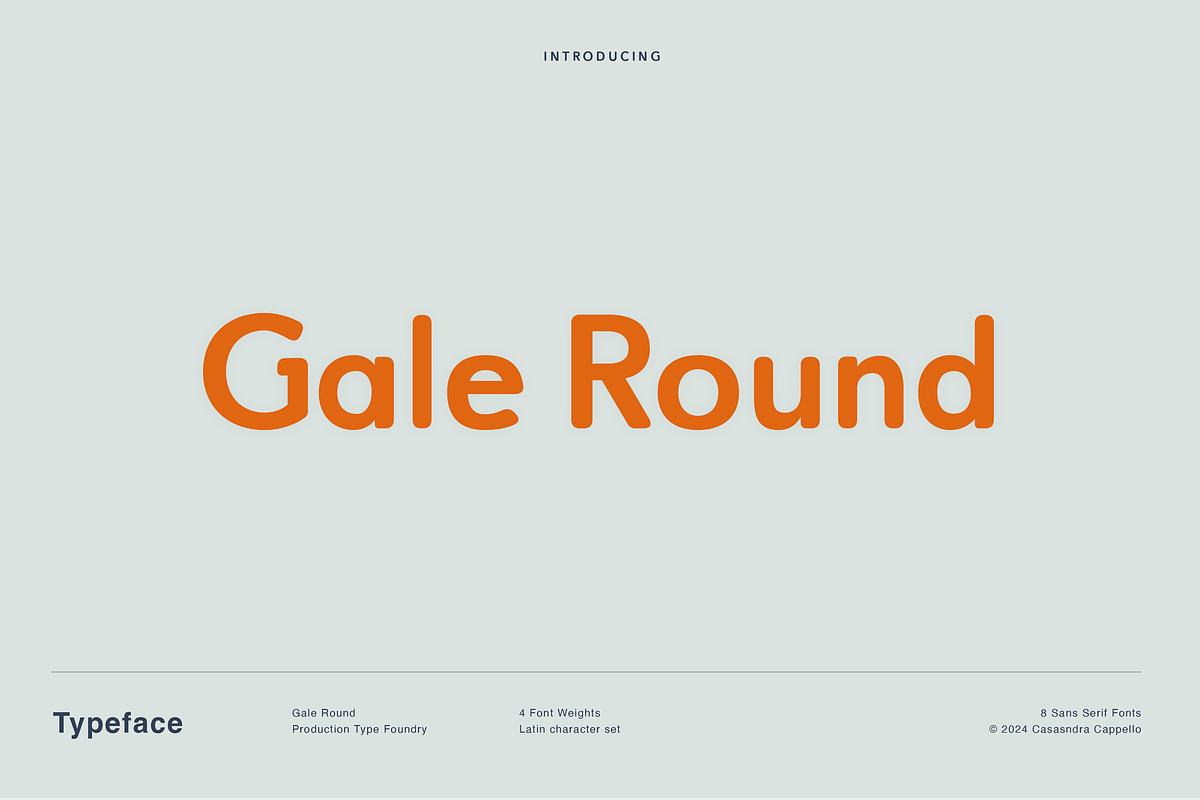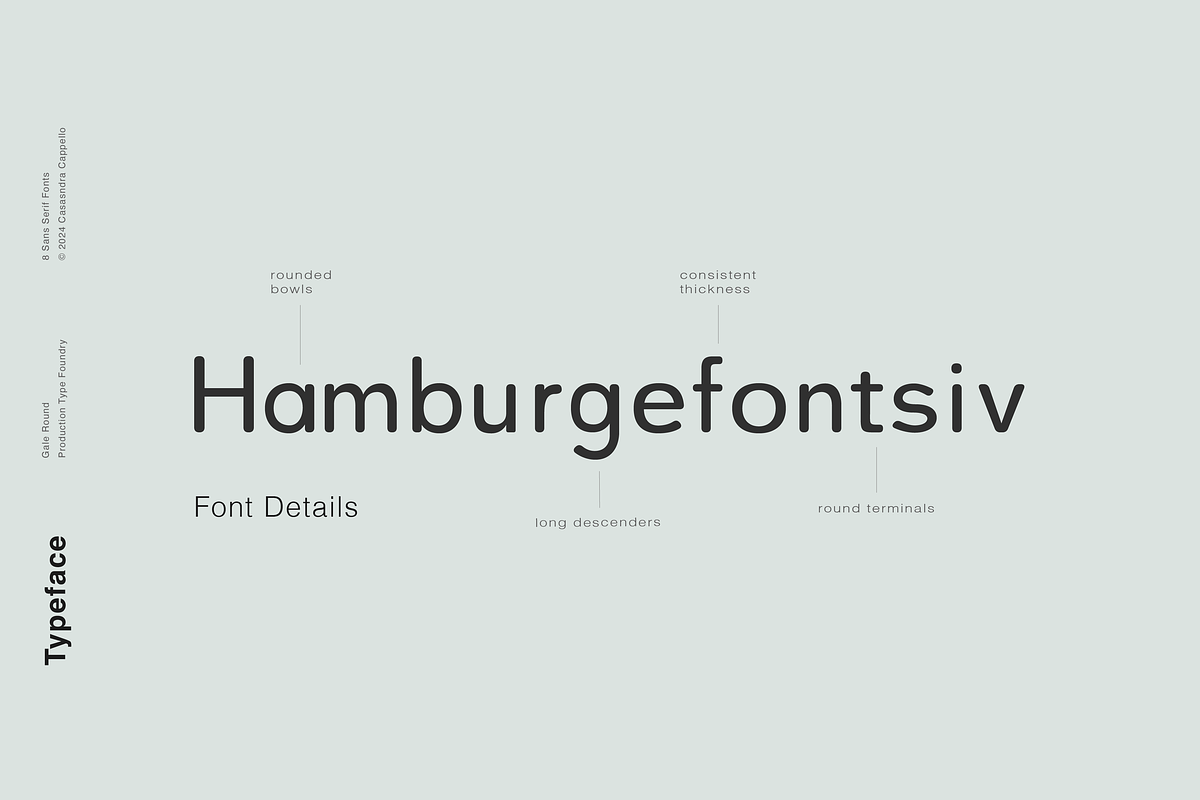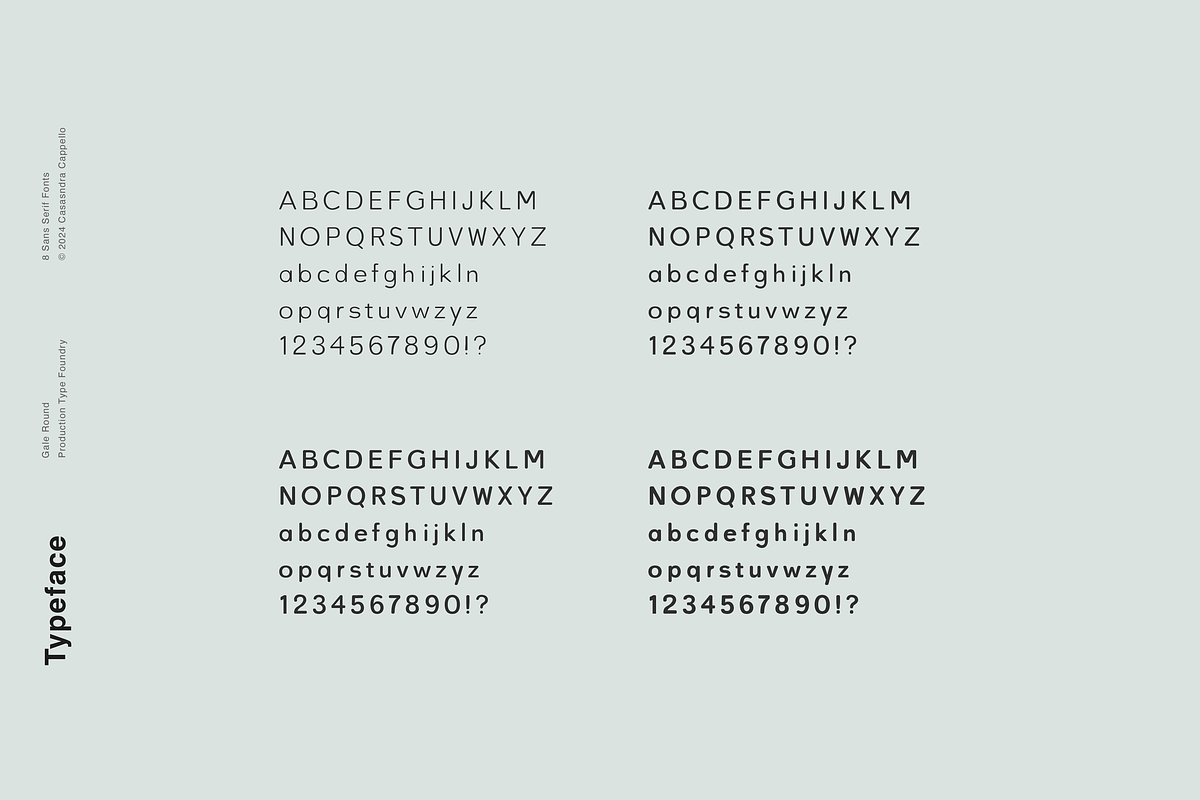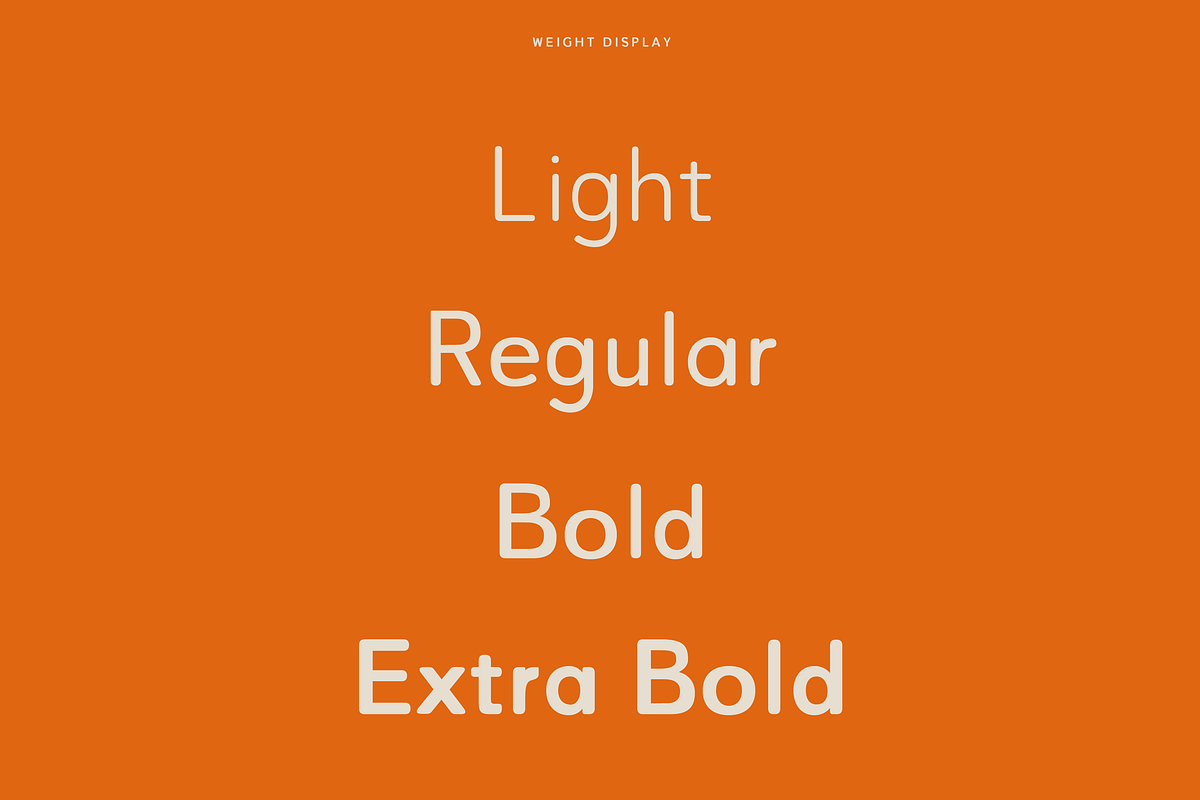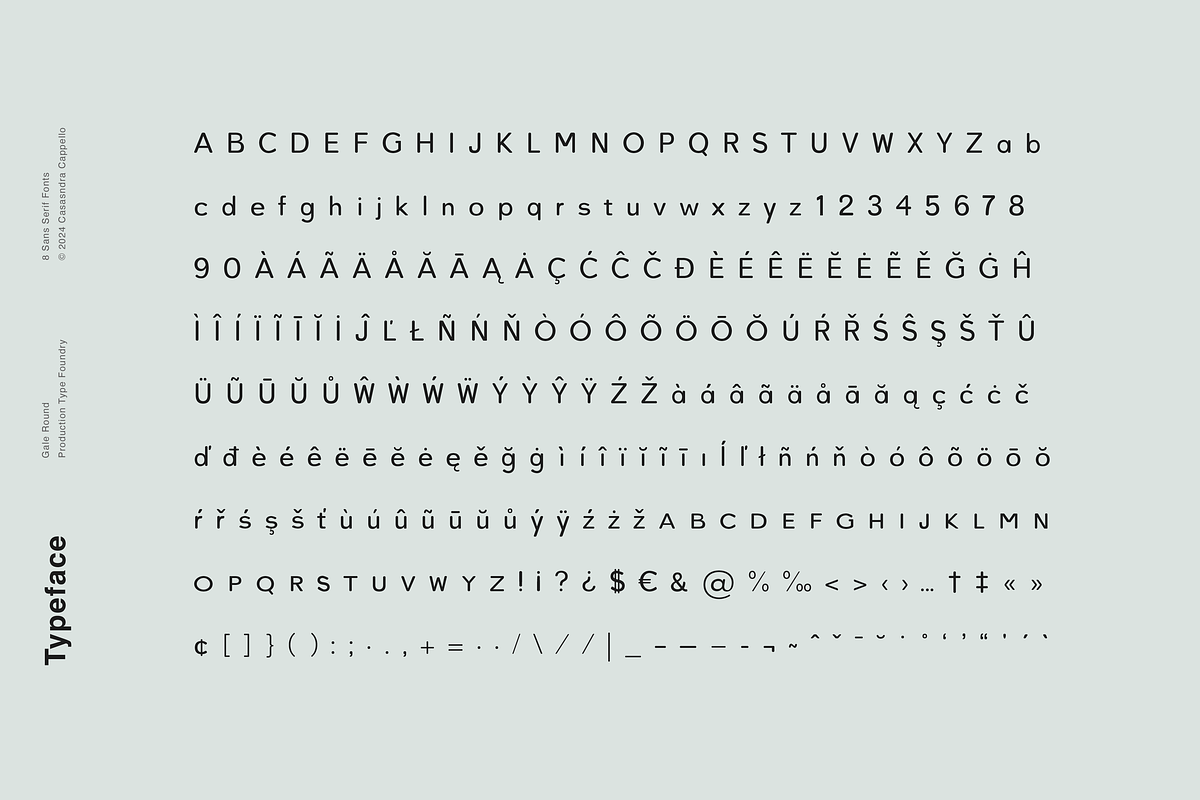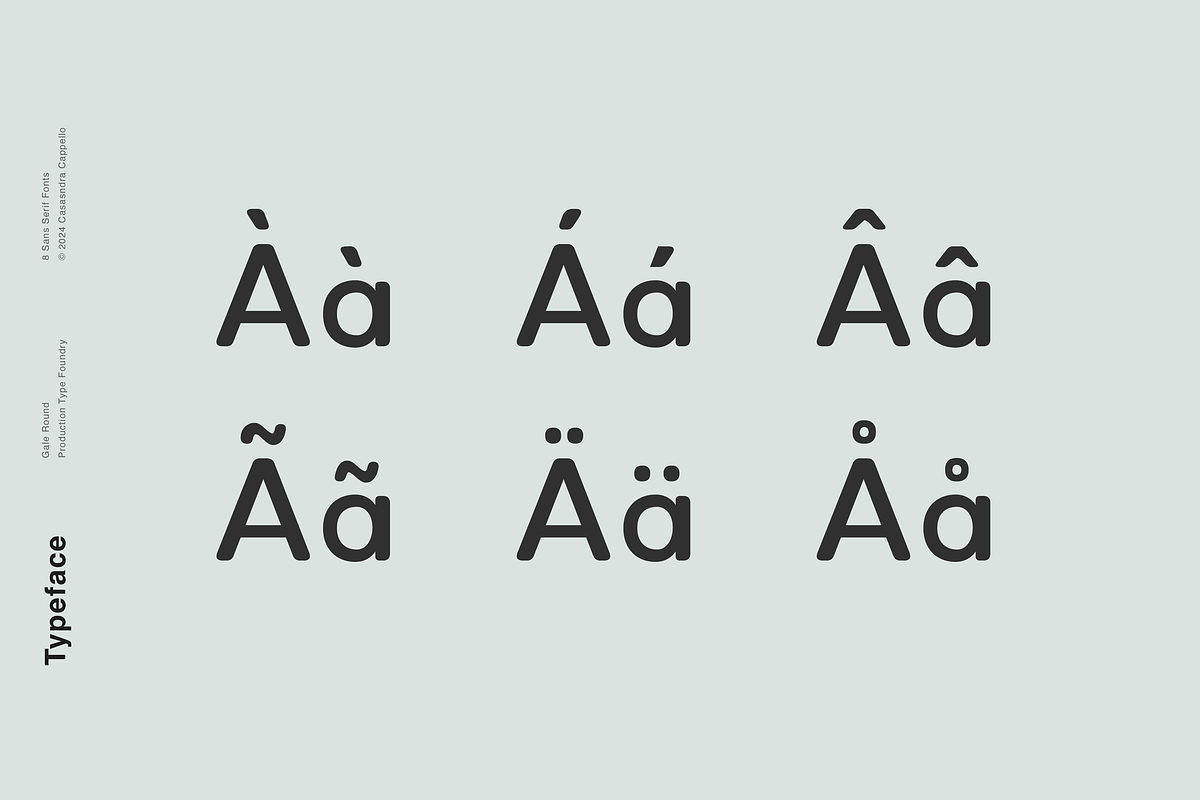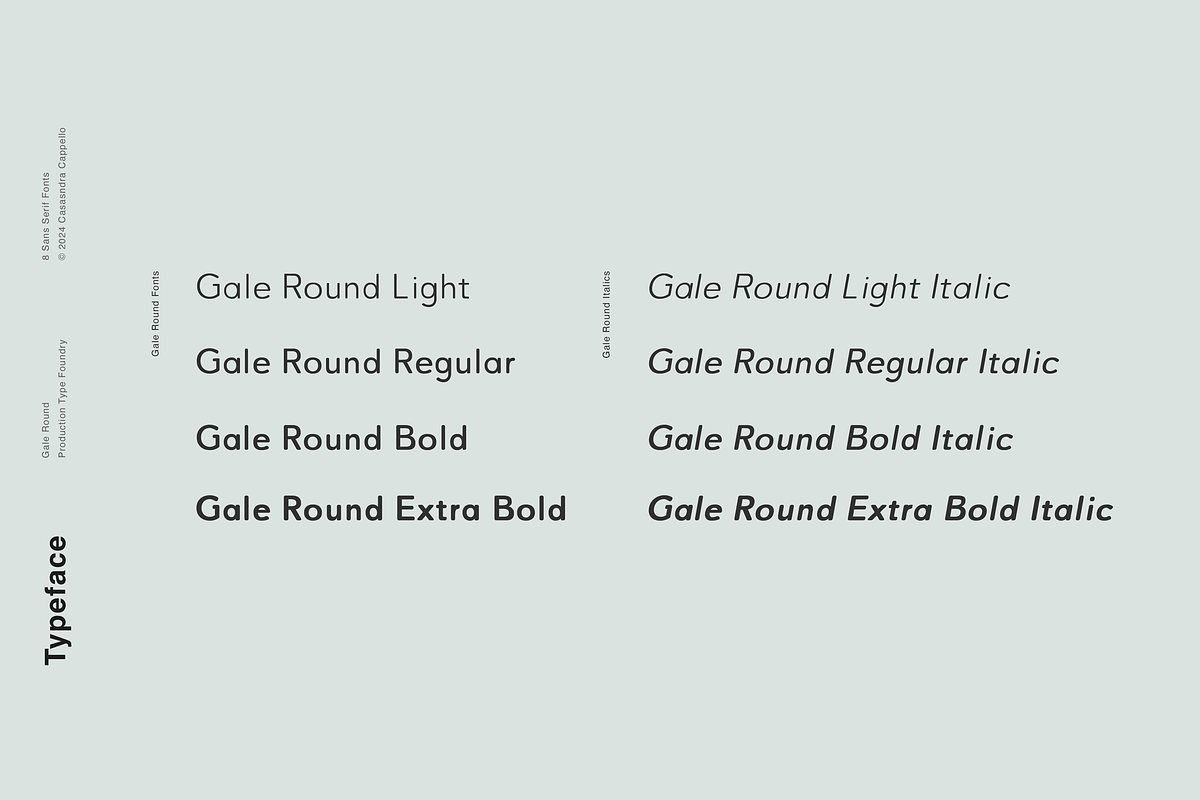
Gale Round - Geometric Sans Serif
Gale Round is a modern, fun, geometric, sans serif typeface. It has a little bit of personality and can be used for both headers and body copy. This font family includes all Latin characters (including accents), numbers, special characters, and punctuation.
Gale Round includes eight fonts in OTF format: four weights and four italics.